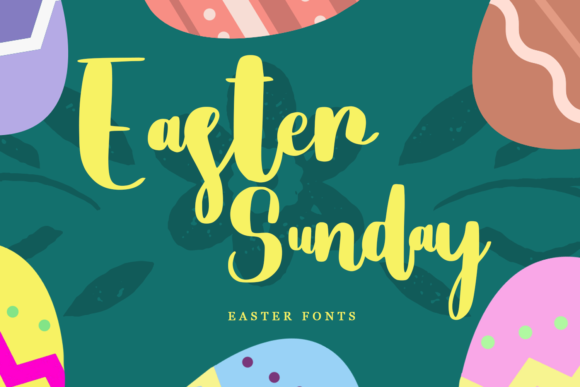
Spring into Creativity with the Easter Sunday Font
As a designer, there’s nothing quite like the feeling of stumbling upon the perfect font to bring your project to life. For me, it’s like discovering a hidden treasure that adds that extra oomph to make your design truly special. And that’s exactly what happened when I discovered the Easter Sunday Font – a delightful, handwritten font that instantly brightens up any design.
This charming font, aptly named Easter Sunday Font, is perfect for adding a playful touch to your designs. Its whimsical and quirky nature makes it a standout choice for anyone looking to inject a bit of personality into their work. Whether you’re creating a social media post, a greeting card, or a branding package, Easter Sunday Font is sure to bring a smile to your face and make your designs stand out from the crowd.
• Font Family: Easter Sunday is a unique and decorative font family, ideal for various design projects.
• Unique Characteristics: Easter Sunday font features intricate and ornate designs, making it perfect for adding a touch of elegance and sophistication to your designs.
Overall, I was pleasantly surprised by the Easter Sunday Font. ✨ Its unique blend of modern and vintage elements makes it stand out in a crowded market. The font is perfect for spring and Easter-themed projects, and its versatility allows it to be used in a variety of contexts, from digital designs to print materials.
• Unique blend of modern and vintage elements
• Perfect for spring and Easter-themed projects
• Highly versatile and can be used in various contexts
• Available in multiple weights and styles
• May not be suitable for projects that require a more minimalist aesthetic
• Can be overwhelming if used in large quantities
• Lack of international character support (although this is a common issue with many fonts)
Overall, I think the Easter Sunday Font is a great addition to any designer’s toolkit. With its unique blend of modern and vintage elements, it’s perfect for adding a touch of personality to your designs. Just be mindful of the limitations and use it in moderation.
Tips: Use the Easter Sunday Font to create eye-catching headings and titles in your Easter-themed designs. Pair it with pastel colors and spring-inspired elements for a cohesive look.
Tips: Use the Easter Sunday Font to create custom Easter-themed graphics and illustrations. Experiment with different font sizes and styles to add visual interest.
Tips: Use the Easter Sunday Font to create engaging Easter-themed presentations and documents. Pair it with colorful graphics and images to make your content stand out.
The Easter Sunday Font is perfect for:
• Easter-themed invitations and cards.
• Spring-inspired social media graphics.
• Easter-themed party decorations and signage.
• Custom Easter gifts and gift tags.